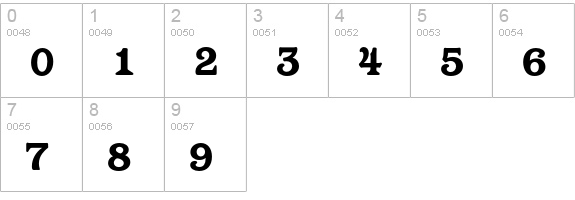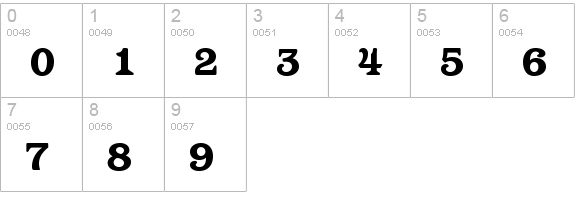
BarcelonaEF-Heavy is a heavy, high-impact variant in the BarcelonaEF typeface family \xE2\x80\x94 well suited to high-impact headlines, posters, and display advertising.
BarcelonaEF-Heavy is a bold and modern font that exudes strength and sophistication. With its thick, heavy strokes and clean lines, this font is perfect for making a bold statement in your designs. Whether you're creating a poster, logo, or headline, BarcelonaEF-Heavy will command attention and leave a lasting impression. The best part? BarcelonaEF-Heavy is available for free download at FontsMarket.com. This means you can easily access this stunning font and incorporate it into your projects without any cost. Don't miss out on the opportunity to enhance your designs with the impactful BarcelonaEF-Heavy font - download it today and take your creations to the next level.